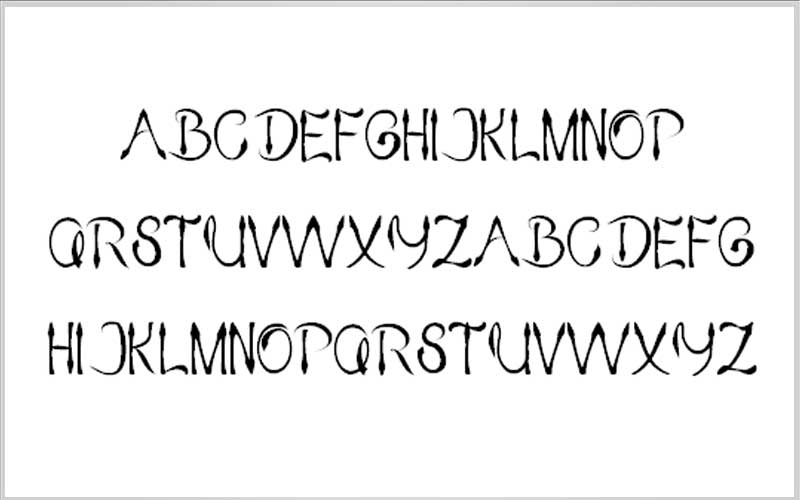
KING OF PIRATE is a high quality Disney font that is designed by weknow and is available for free download and personal use. The free version provides all uppercase and lowercase letters and a few special characters too.